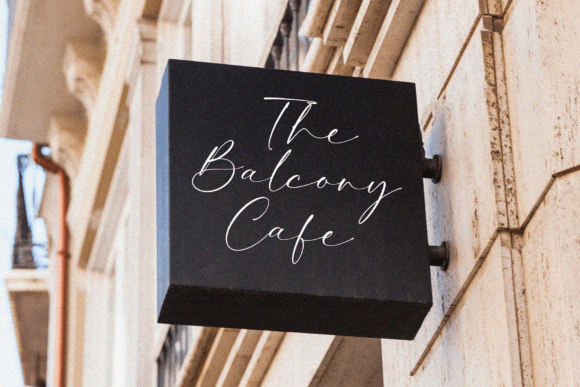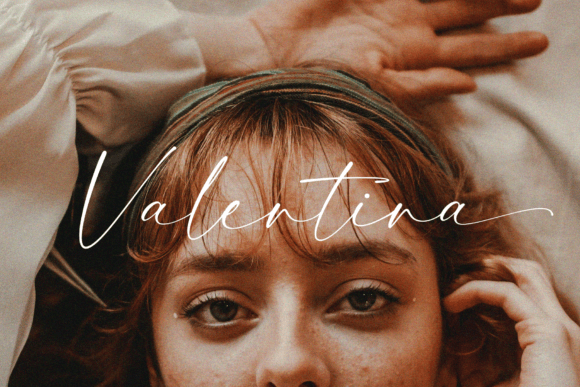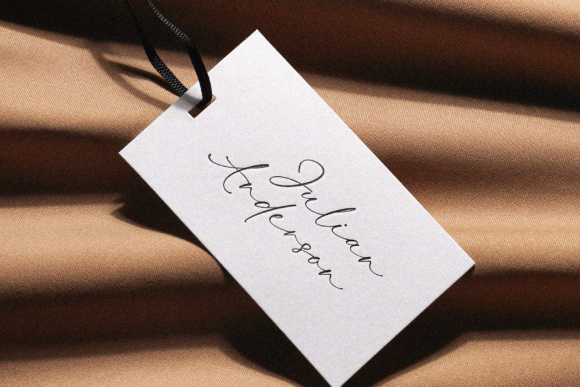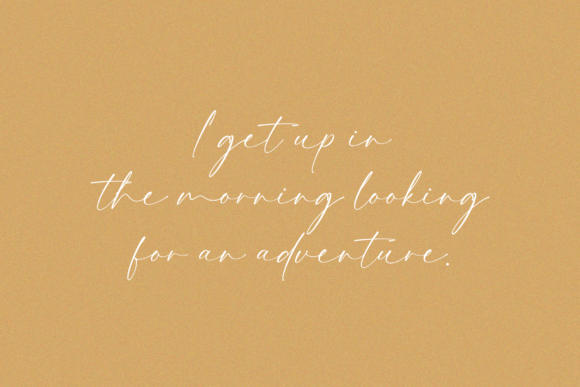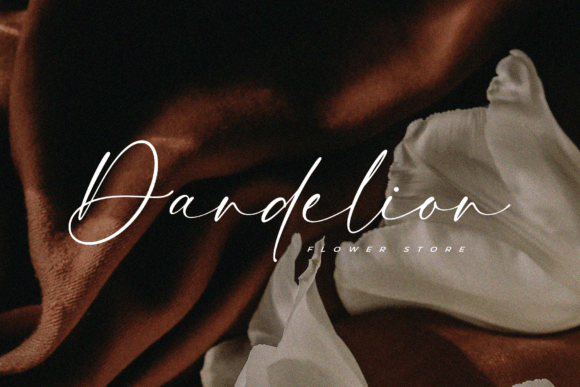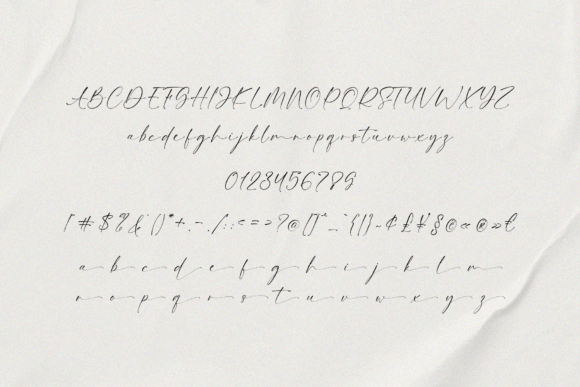
Discover the Elegance of Anglewhite Font: Elevate Your Designs with Sophistication
Are you looking for a font that embodies the essence of elegance and refinement? Look no further than Anglewhite, a captivating script calligraphy font that brings a touch of luxury to your designs. Inspired by the delicate dance of light and shadow at dawn, Anglewhite is the perfect choice for designers and crafters seeking to add a level of sophistication to their work.
The Inspiration Behind Anglewhite
Anglewhite’s inspiration is rooted in the serene beauty of the morning light. The font’s creator sought to capture the essence of dawn, when the world is bathed in a soft, gentle glow. The result is a font that exudes elegance and refinement, perfect for designs that require a touch of sophistication. With Anglewhite, you can bring a sense of calm and serenity to your work, transporting your audience to a world of beauty and tranquility.
Key Features of Anglewhite Font
Anglewhite boasts an impressive range of features that make it an ideal choice for designers and crafters. Some of the key features include:
- Exquisite Ligatures: Anglewhite features beautiful ligatures that add a touch of elegance to your text. These ligatures seamlessly connect letters, creating a flowing and organic look that is perfect for formal designs.
- Graceful Swashes: The font’s swashes add a level of sophistication to your designs, allowing you to create beautiful, flowing text that commands attention.
- Classic Charm and Modern Flair: Anglewhite perfectly balances classic charm with modern flair, making it an excellent choice for designers seeking to create unique and eye-catching designs.
Perfect for a Range of Design Applications
Anglewhite’s versatility makes it an excellent choice for a range of design applications. Some of the most popular uses for this font include:
- Wedding Invitations: Add a touch of elegance to your wedding invitations with Anglewhite. The font’s refined sophistication and classic charm make it perfect for formal wedding designs.
- Branding: Use Anglewhite to elevate your brand’s visual identity. The font’s unique blend of classic and modern elements makes it an excellent choice for businesses seeking to stand out in their industry.
- Heartfelt Quotes: Anglewhite is also perfect for sharing heartfelt quotes and messages. The font’s beautiful ligatures and swashes add a touch of elegance to your text, making it perfect for social media posts, greeting cards, and more.
Why Choose Anglewhite Font?
With so many fonts available, why choose Anglewhite? Here are just a few reasons why designers and crafters love this captivating script calligraphy font:
- Effortless Beauty: Anglewhite’s elegant strokes and refined sophistication make it easy to create beautiful, eye-catching designs that command attention.
- Unique and Versatile: The font’s unique blend of classic and modern elements makes it perfect for a range of design applications, from formal wedding invitations to modern branding.
- High-Quality Design: Anglewhite is designed with precision and attention to detail, ensuring that your designs look professional and polished.
Anglewhite font is a game-changer for designers and crafters seeking to add a touch of elegance and sophistication to their work. With its exquisite ligatures, graceful swashes, and classic charm, this font is perfect for a range of design applications. Whether you’re creating wedding invitations, branding materials, or heartfelt quotes, Anglewhite is the perfect choice. Let your words flow with the effortless beauty of Anglewhite, and discover a world of refined sophistication and elegance.